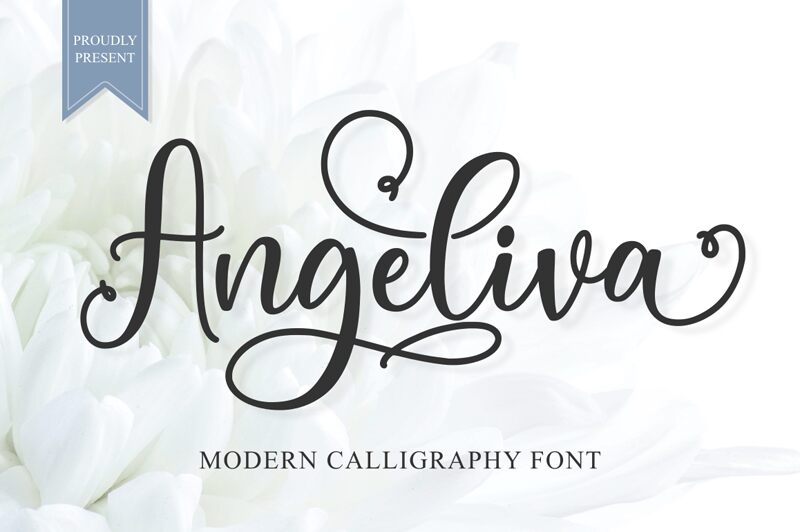
Say hello to Angeliva, the modern calligraphy font designed by Makashi. With its semi-light weight, this font is perfect for adding a touch of elegance and sophistication to any project. Whether you're designing wedding invitations, branding materials for a high-end fashion label or creating social media graphics, Angeliva will add that special something that sets your work apart. The flowing lines and delicate curves of this font create an air of femininity which makes it perfect for projects aimed at women such as beauty blogs, magazines or even greeting cards. Try Angeliva today and elevate your designs to new heights!